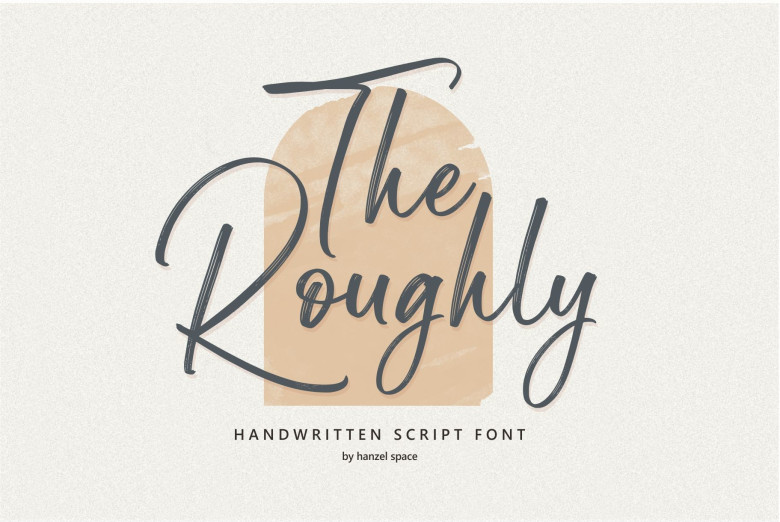
The Roughly Font
The Roughly Script feels equally charming and elegant. It looks stunning on wedding invitations, thank you cards, quotes, greeting cards, logos, business cards and every other design which needs a handwritten touch.
The Roughly Brush Font